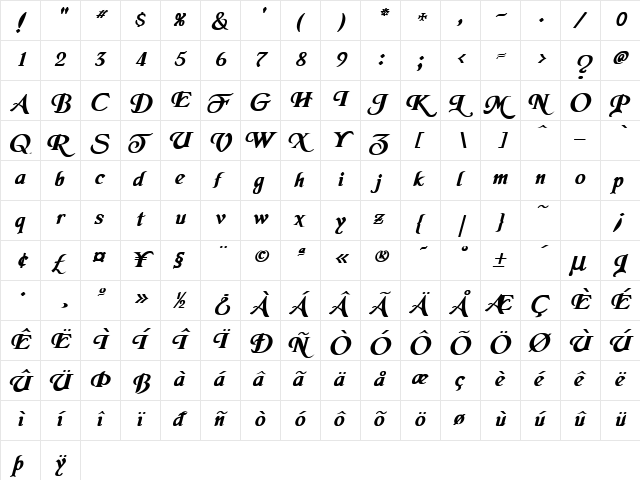
Merced-BoldItal Normal
Merced-BoldItal is a composed and adaptable typeface that performs quietly and consistently across a wide range of design contexts. Its bold stroke weight gives it real presence on the page.